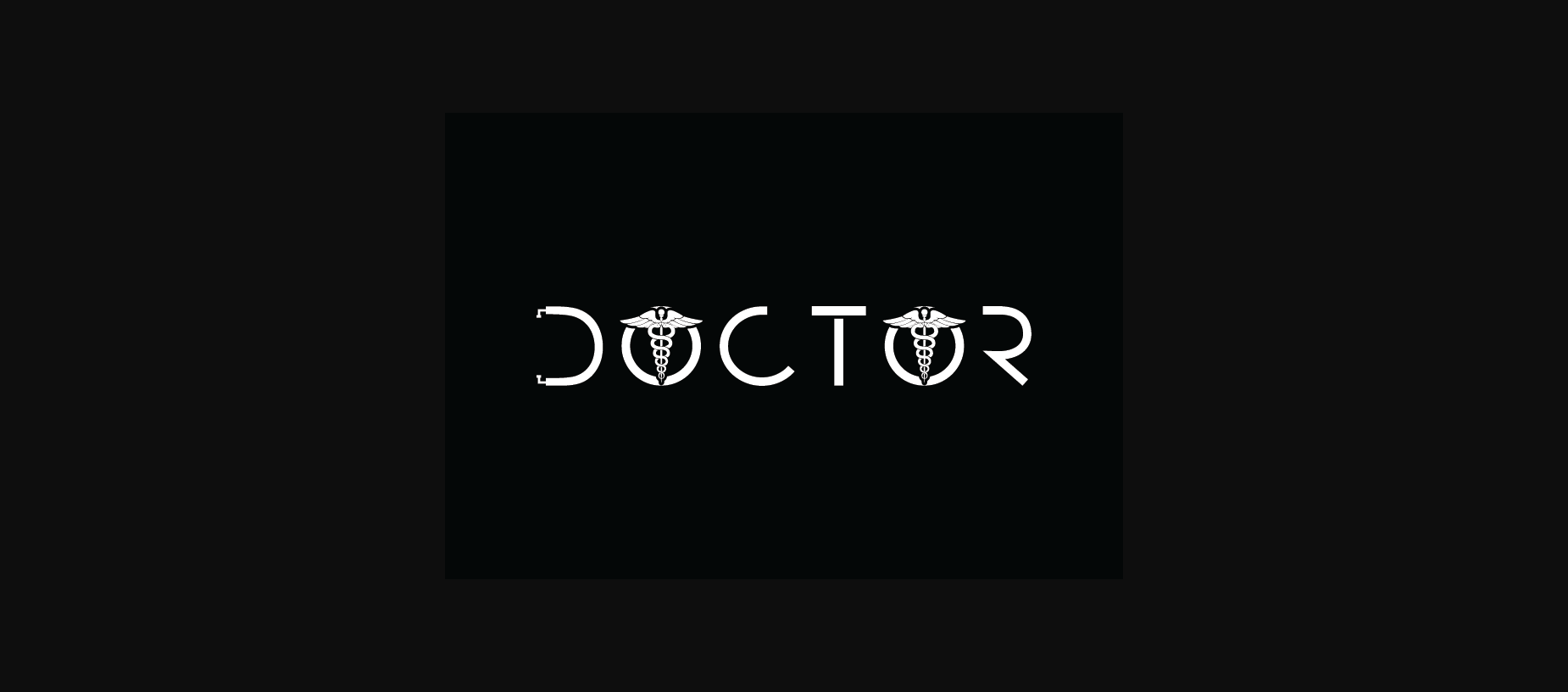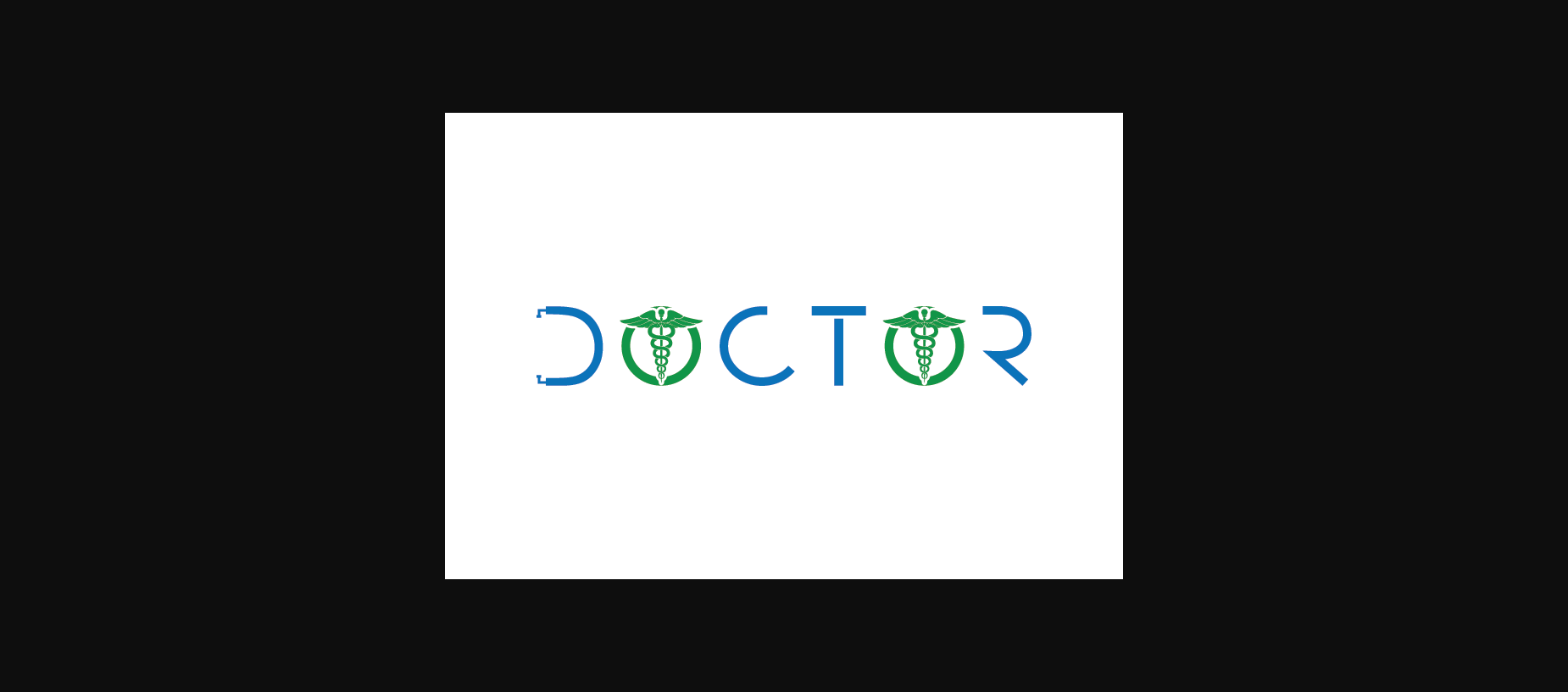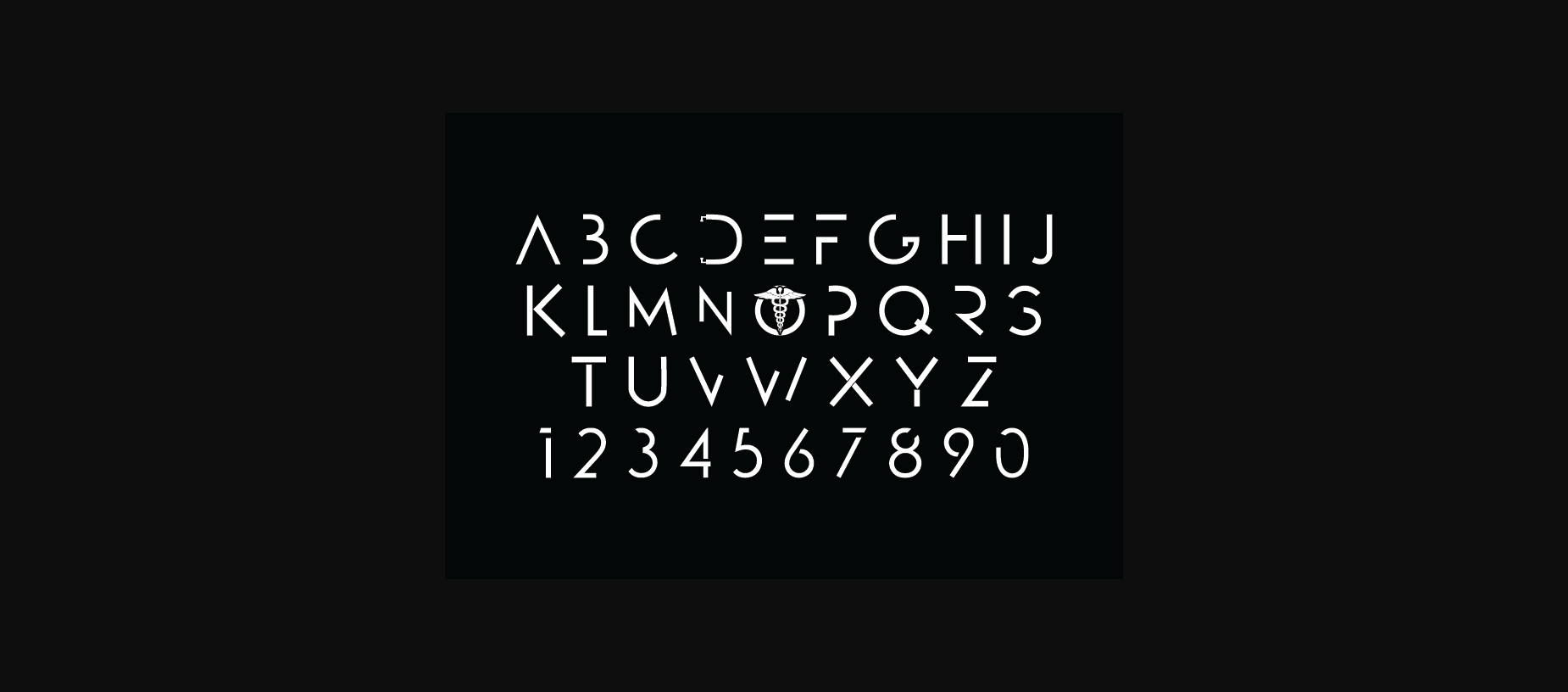
Doctor Font
About Doctor Font
The Doctor font is a cool and modern sans-serif font. Add it confidently to your creative projects and notice how it makes them stand out.